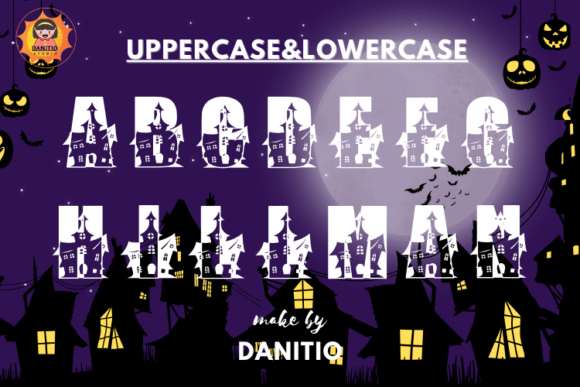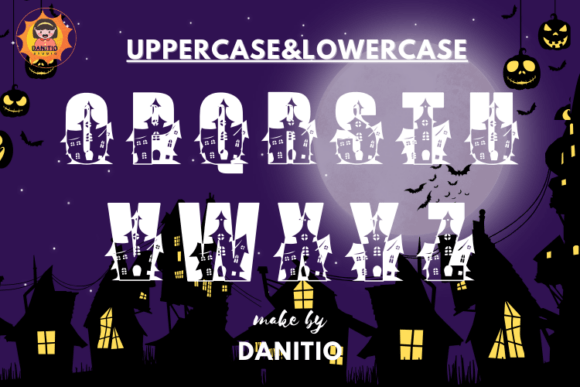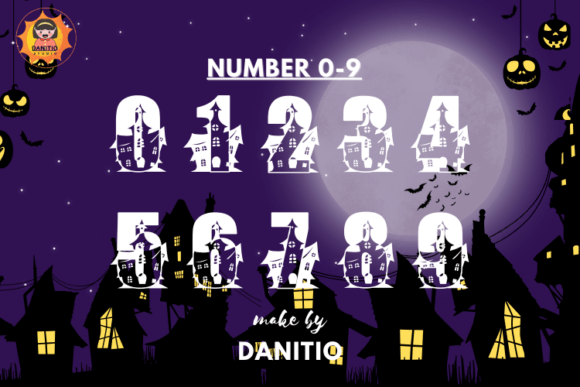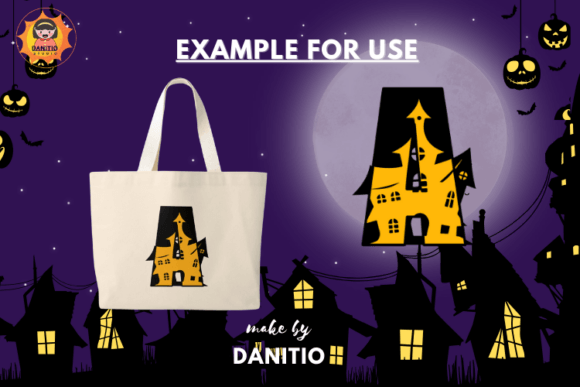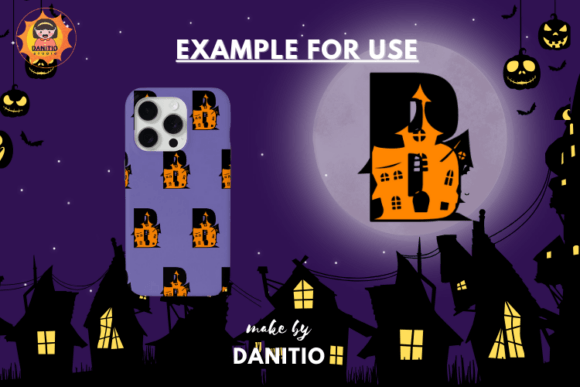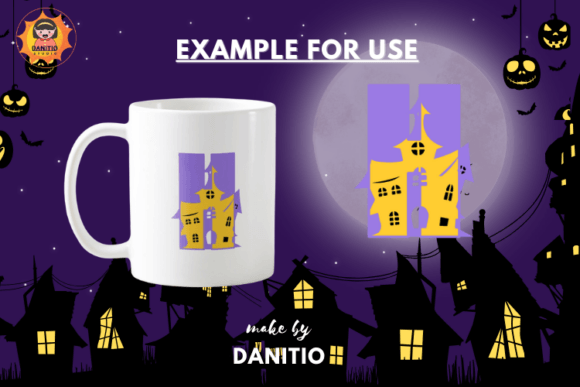
Introducing Castle Halloween Font: The Perfect Addition to Your Spooky Season Projects
As the spookiest time of the year approaches, designers and crafters are on the lookout for the perfect fonts to add a touch of eerie elegance to their Halloween-themed projects. Look no further than the Castle Halloween Font, a cool and captivating typeface that’s sure to cast a spell on your audience.
What Makes Castle Halloween Font So Special?
Castle Halloween Font is a unique and creative typeface that’s specifically designed to evoke the spirit of Halloween. The font features intricate castle-inspired decorations that give it a one-of-a-kind look, making it perfect for adding a touch of whimsy and fun to your designs. Whether you’re creating posters, flyers, social media posts, or greeting cards, this font is sure to make your project stand out from the crowd.
Castle Halloween Font is incredibly versatile, making it suitable for a wide range of projects. Here are just a few ideas to get you started:
- Posters and Flyers: Create eye-catching posters and flyers for Halloween events, parties, or haunted houses.
- Social Media Posts: Add a touch of Halloween magic to your social media posts, making them perfect for Instagram, Facebook, Twitter, and more.
- Stationery and Artwork: Use Castle Halloween Font to create spooky-chic stationery, including invitations, greeting cards, and gift tags.
- Merchandise: Add the font to your favorite merchandise, such as t-shirts, mugs, and trick-or-treat bags, to create unique and festive items.
Why Choose Castle Halloween Font?
So, why should you choose Castle Halloween Font for your Halloween projects? Here are just a few reasons:
- Unique and Creative: Castle Halloween Font is a one-of-a-kind typeface that’s sure to make your projects stand out.
- High-Quality: The font is designed with high-quality and clarity in mind, ensuring that it looks great even at small sizes.
Tips for Using Castle Halloween Font
To get the most out of Castle Halloween Font, here are a few tips to keep in mind:
- Experiment with Colors: Try pairing the font with a range of spooky colors, such as orange, black, and purple, to create a unique and eye-catching look.
- Play with Sizes: Experiment with different font sizes to create visual interest and add emphasis to certain words or phrases.
- Add Graphics: Consider adding Halloween-themed graphics, such as bats, ghosts, or jack-o-lanterns, to enhance your design.